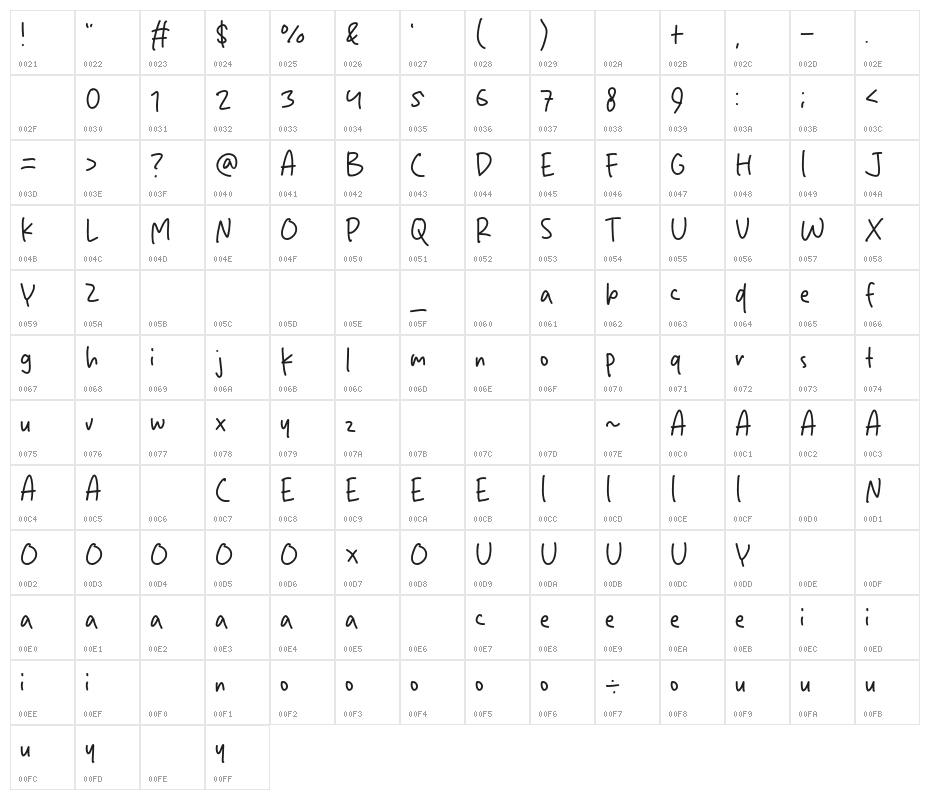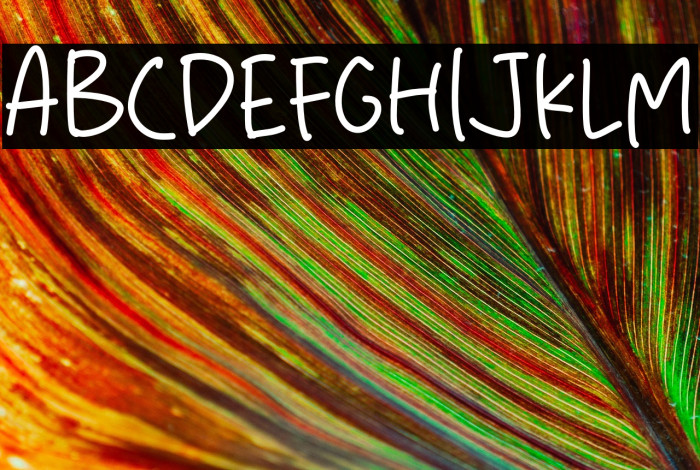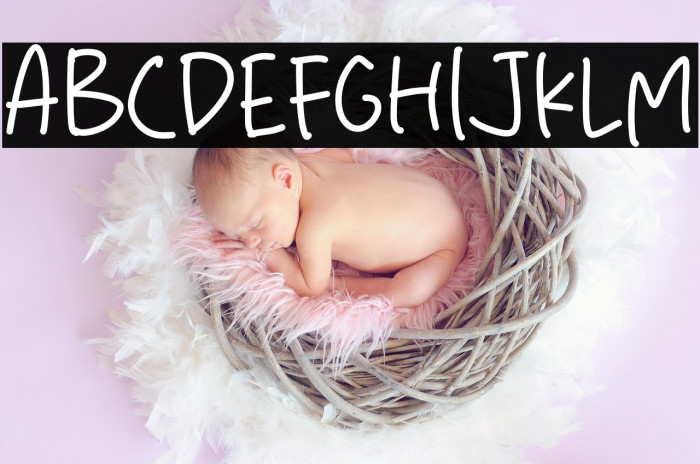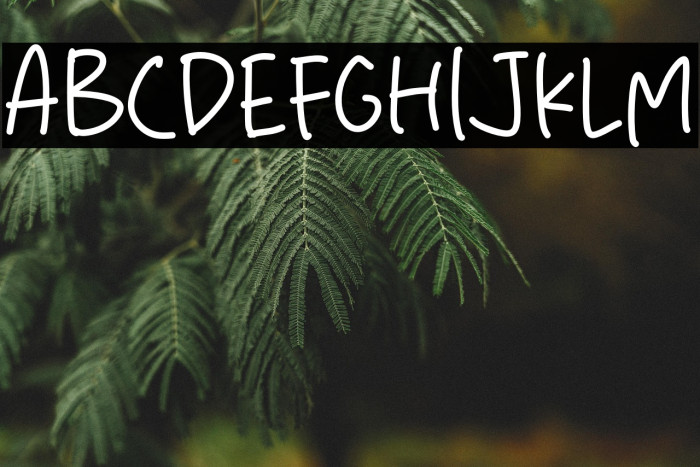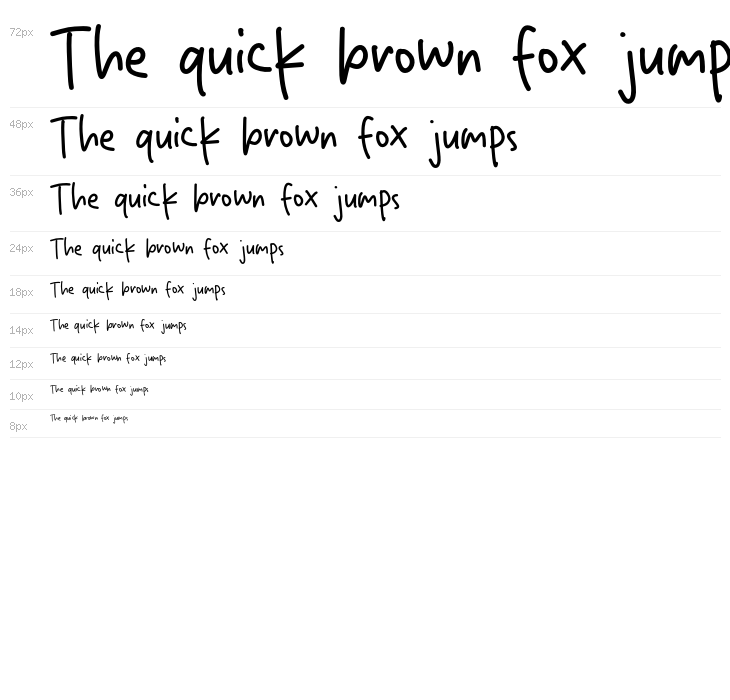
Perfect Time Font
Perfect Time Description
This font exudes a casual and friendly handwritten style, characterized by its smooth, flowing lines and slightly irregular shapes that mimic natural handwriting. The letters are well-spaced, providing a clear and legible appearance, while maintaining a playful and informal tone. The uppercase and lowercase letters are distinct, with a slight slant that adds to the handwritten feel. Numbers and special characters are consistent with the overall style, ensuring a cohesive look across all text elements. This font is perfect for projects that require a personal touch, such as invitations, greeting cards, or informal branding materials.
| Overall Style | Casual, Playful |
| Use Case | Headlines, Informal text, Personal projects |
| Proposed Projects | Ideal for invitations, greeting cards, personal branding, and informal communication. |